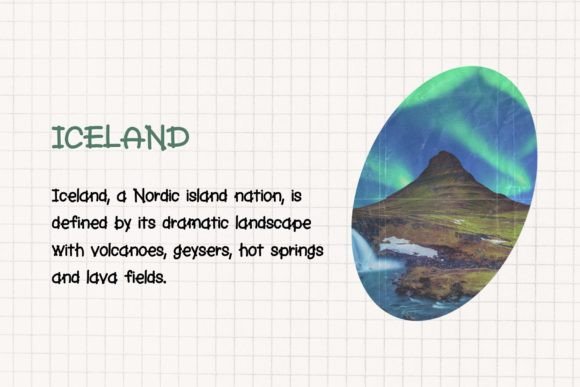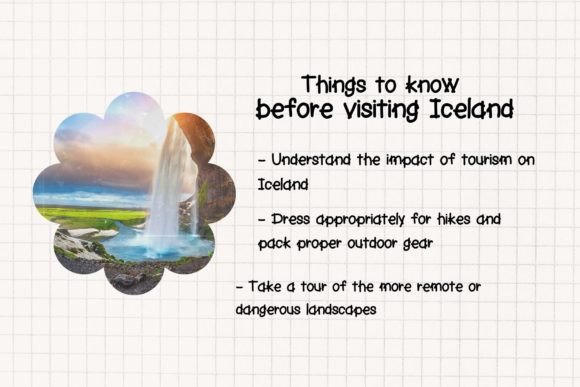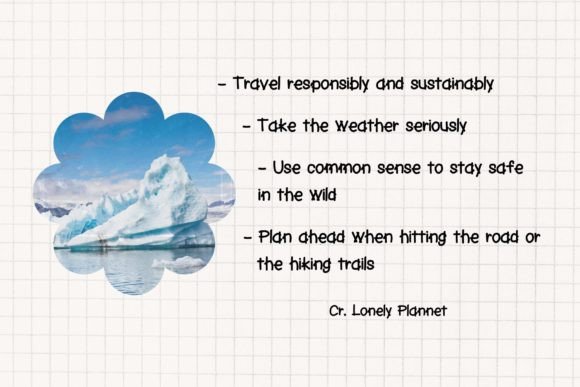
Introduction to Horten Font
Have you ever found yourself doodling in the margins of a notebook or scribbling funny quotes on a post-it note? For many designers, those spontaneous moments of creativity can spark a new idea or inspire a fresh project. And what if you could capture that same carefree spirit in your designs?
Enter the Horten Font, a delightful script font designed to evoke the feeling of simple handwriting. This charming font is perfect for adding a touch of whimsy to your creative projects, from t-shirt designs and mugs to wall art and digital presentations. With its friendly, approachable vibe, the Horten Font is a valuable resource for designers looking to add some personality to their work.
Key Features of Horten Font
- High-quality design resource with a unique and modern aesthetic, suitable for creative projects
- Perfect for use in logos, typography, and other design elements where a modern and sleek look is desired
Honest Review: Horten Font
I recently stumbled upon the Horten Font while searching for a design resource for a creative project. I was immediately drawn to its unique aesthetic, which features a mix of modern and vintage elements.
- High-quality design: The Horten Font boasts crisp lines and a clear, legible structure, making it perfect for a variety of design applications.
- Limited font sizes: The Horten Font may not be suitable for very large or very small font sizes, as the design can become distorted.
- Not ideal for body text: Due to its unique design, the Horten Font may not be the best choice for body text, as it can be overwhelming for readers.
Overall, I’m impressed with the Horten Font’s unique design and versatility. While it may have some limitations, it’s an excellent addition to any designer’s toolkit, especially for creative projects that require a bold and eye-catching font.
The Horten Font is a high-quality design resource perfect for any creative project. It offers a unique and elegant style, making it ideal for various applications, from logos to typography.
Tips for Getting the Most Out of Horten Font
To get the most out of the Horten Font, use it on a transparent background to create a subtle and elegant design. Experiment with different font sizes and styles to achieve a unique look.
The Horten Font is ideal for various creative projects, including:
- Typography-based designs
- Business cards
- Infographics